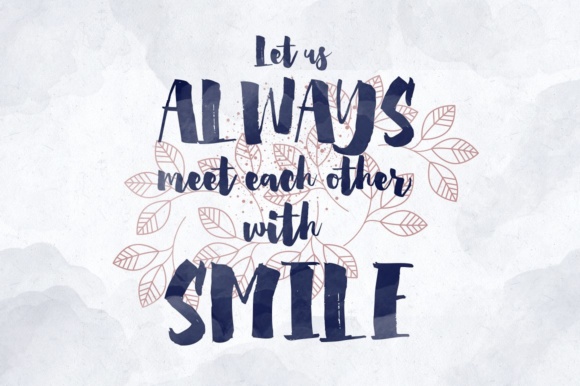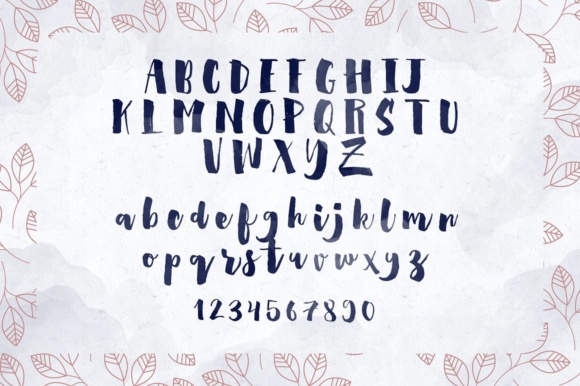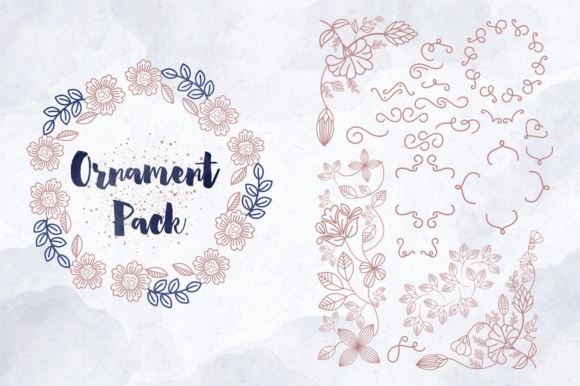
Introduction to Heartwell Font
Heartwell is a gorgeous modern calligraphy font, inspired by the nuances that make hand-lettering beautiful.
This font has dancing baselines to ensure a relaxed and vibrant feel, and with alternating fat and thin strokes this font gives a fully realized impression of harmony .